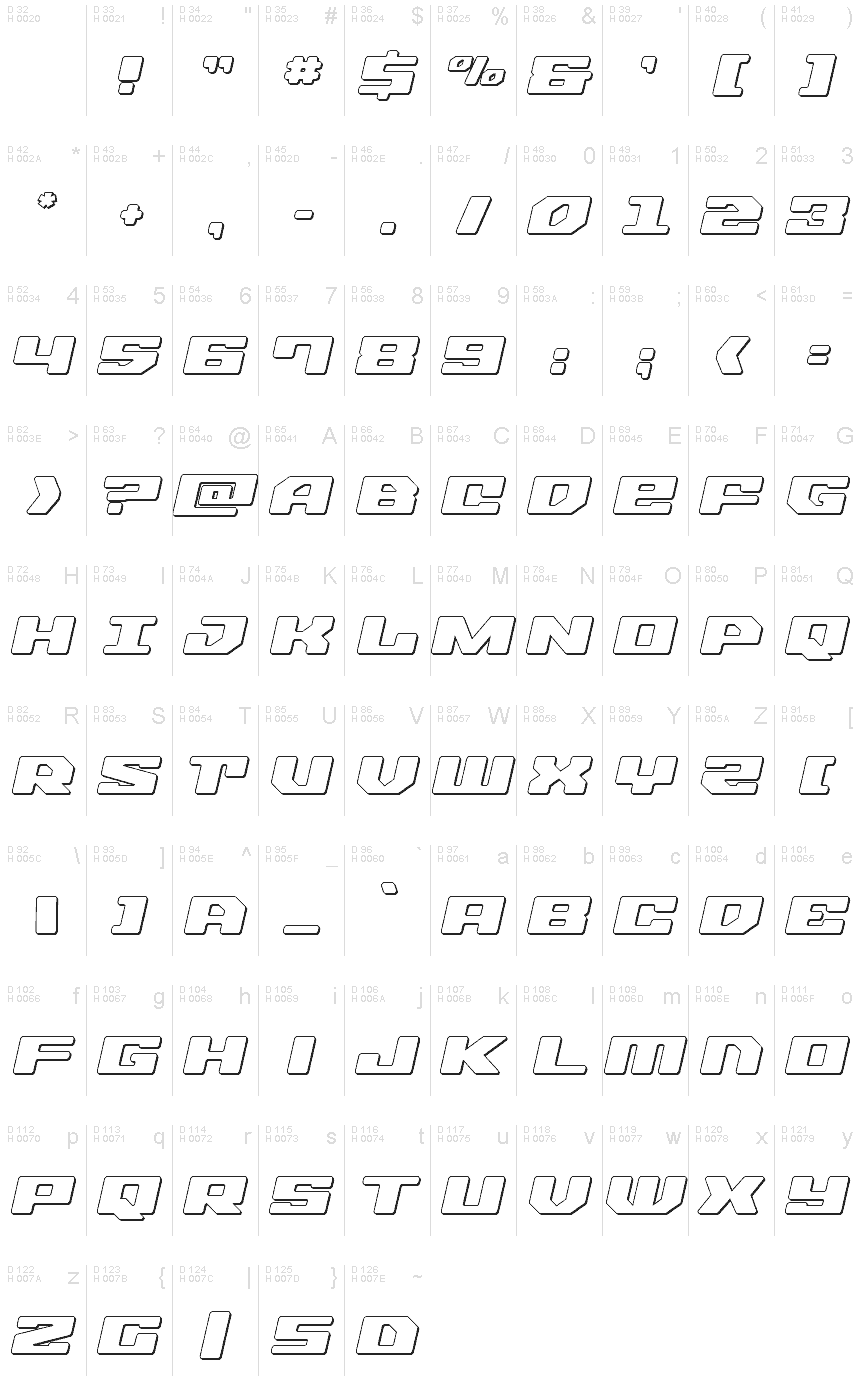
Fawkes Outline Italic
Fawkes Outline Italic font designed by Iconian Fonts is a modern display font that brings a futuristic style to your every project. The expanded design showcases visible geometric shapes that are further emphasized with the font’s free outline. They provide an edgy and bold appearance that can instantly be recognized as each character, uppercase and lowercase, comes with its unusual design.
There’s no need to hold back when using Fawkes because its eye-catching presence can be included in posters, advertisements, social media posts, flyers, movie openings or descriptions for sci-fi films and series, video games designs and CD albums covers for fictional soundtracks or alternative musicians.